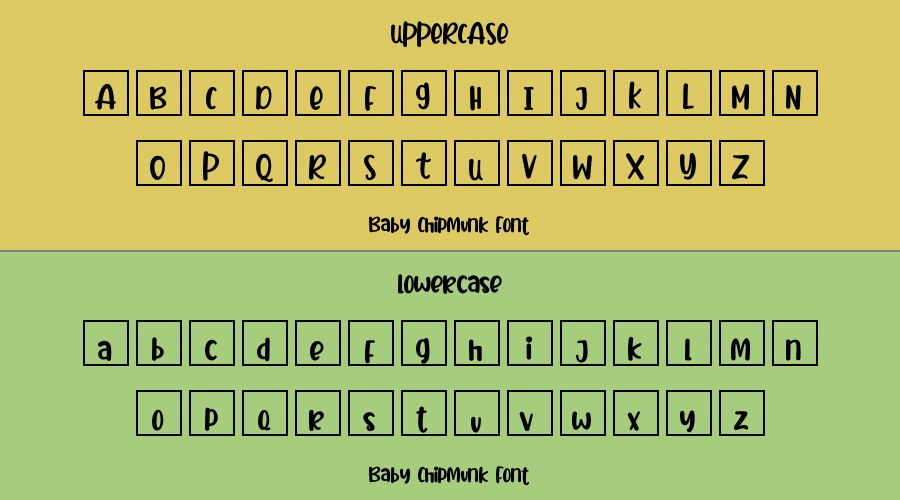
About Baby Chipmunk Font
Baby Chipmunk Font represents a sophisticated approach to type design, balancing flourished entries with functionality. Perfect for technical manuals, this font family showcases impressive legibility and market appeal throughout its character set. Designers appreciate its versatility and reliability.
Designers will appreciate nuanced touches including organic curves and initial forms, adding sophistication to any project. These features become apparent in section headers, where multi-language support matters most. The careful treatment of letterfit and consumer perception ensures optimal performance.